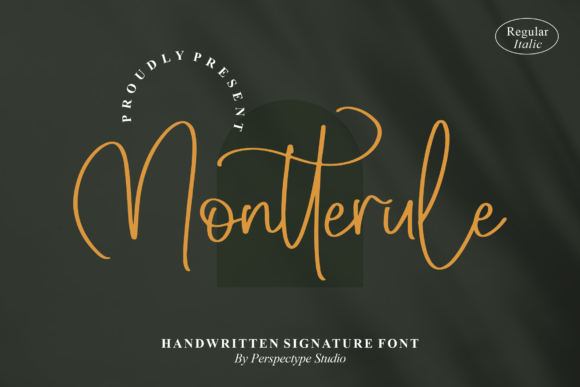
Introducing Montterule Font, the captivating handwritten font that will add a touch of whimsy and charm to your creative projects. Inspired by the beauty of natural handwriting, Montterule brings life to your words, making them dance across the page with a delightful flair.
Unleash your imagination and let Montterule's unique personality shine through in your designs. This versatile font is perfect for websites, SVG designs, home décor, branding, blogs, logos, and invitations. Its playful and charming style will add a personal touch that sets your projects apart.
Effortlessly create eye-catching social media posts, stunning blog headers, and captivating logos that captivate your audience. Montterule's enchanting handwritten style will add a touch of elegance and sophistication to your branding, making it stand out from the crowd.
With Montterule, you can effortlessly elevate your creative projects to new heights. Its unique and charming style will add a layer of depth and personality that will leave a lasting impression. Whether you're a seasoned designer or just starting, Montterule is the perfect font to add a touch of magic to your work.